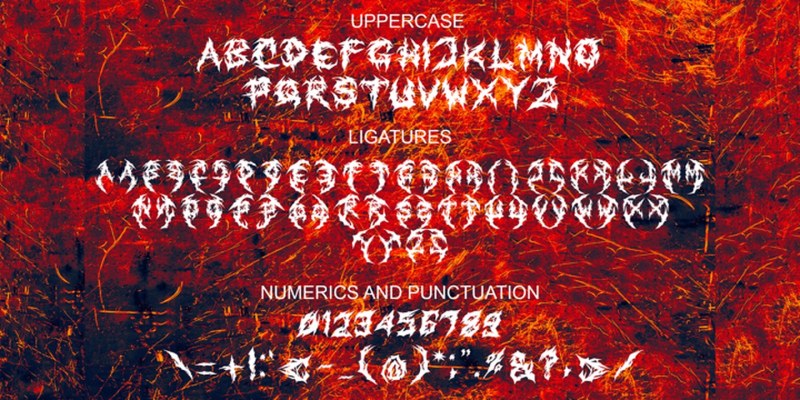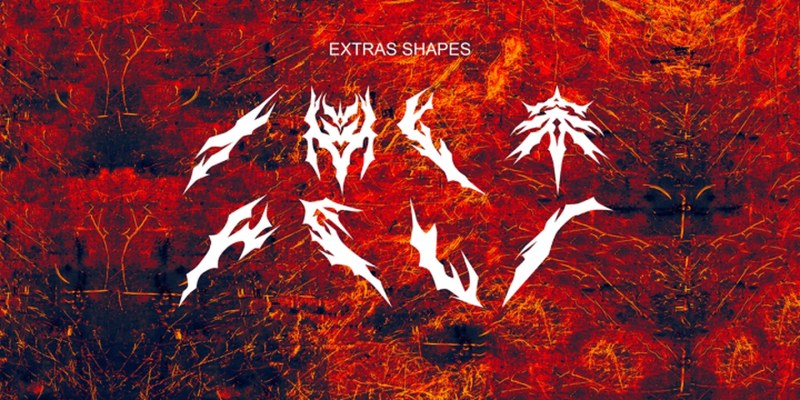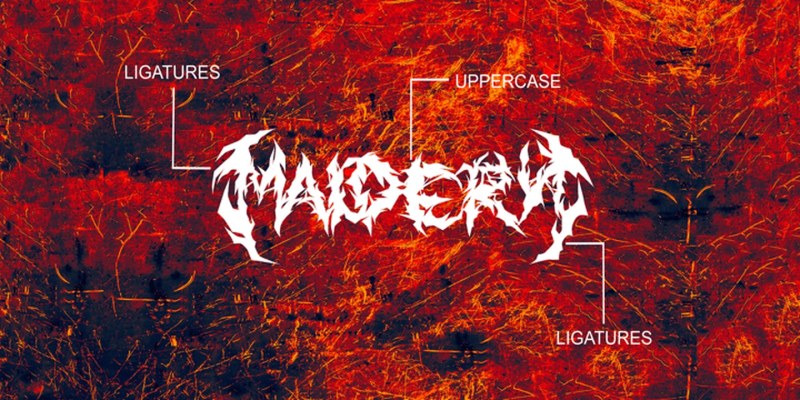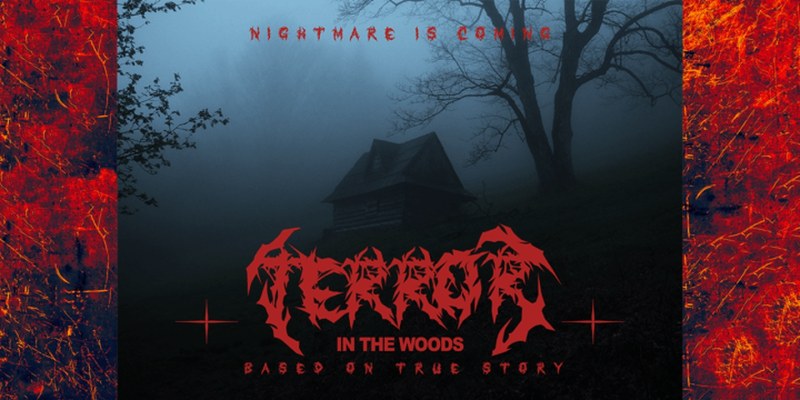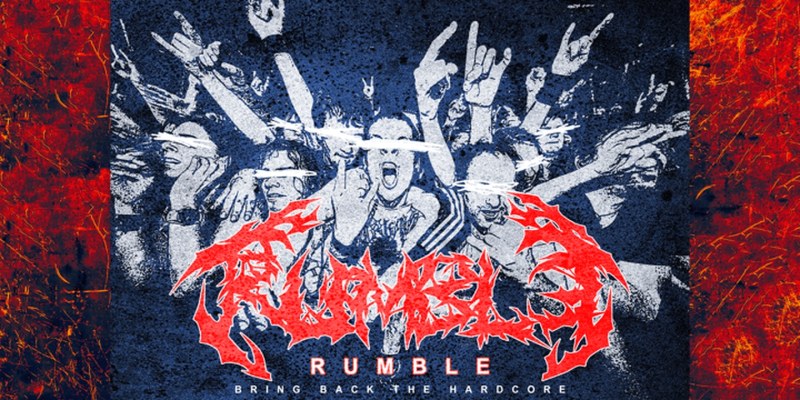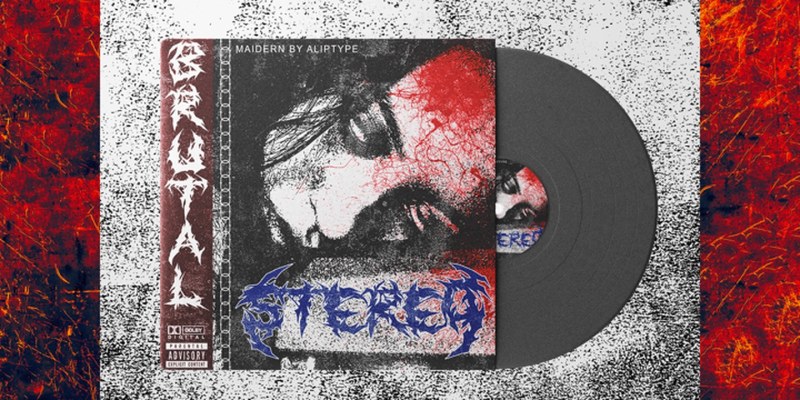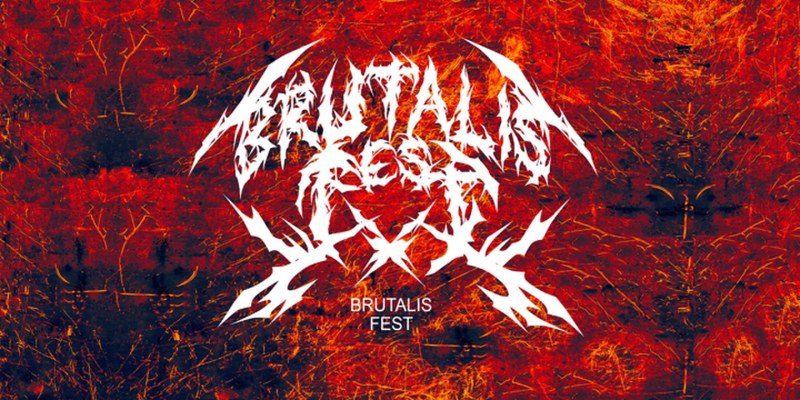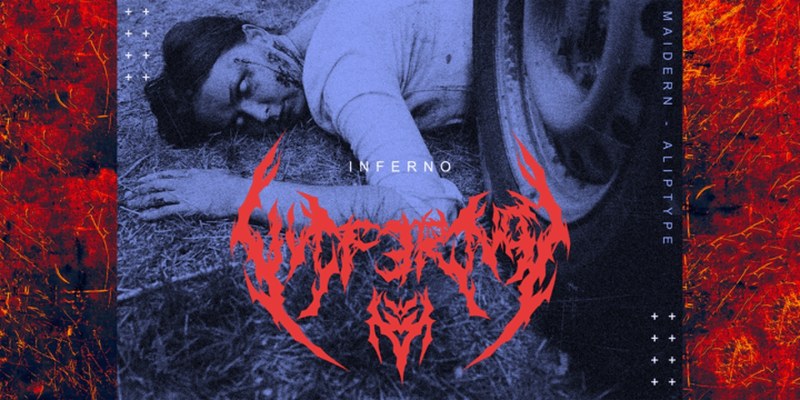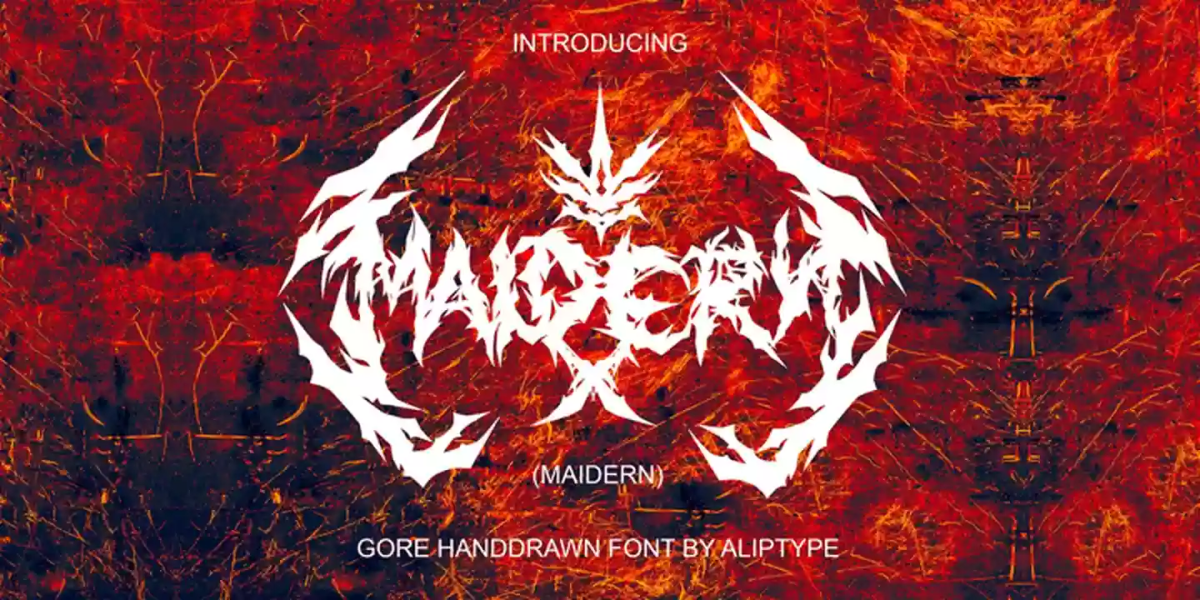
Maidern Font
Maidern is a gore and death metal typeface style. Maidern is perfect for logotype death metal brands, products, merchandise death metal band, death metal band covers, ro…
Maidern is a gore and death metal typeface style. Maidern is perfect for logotype death metal brands, products, merchandise death metal band, death metal band covers, rock events, rock posters, rock magazine covers, branding, product design, labels, and other creative project. Make your artwork more gore with the deadly style of this font.
Where Maidern Font works best
Event & seasonal design
Maidern Font suits themed posters, holiday campaigns, festival identities and party invitations.
Game & entertainment titles
Decorative letterforms are a natural fit for game logos, movie-style titles and merch.
Packaging accents
Use Maidern Font sparingly for product names or flavour labels that need personality.
What is Maidern Font good for?
Maidern Font is a Decorative Fonts typeface tagged Branding, Creative, Decorative Fonts. It works well for headlines, logos, posters, social media graphics and branding projects that need a distinctive decorative fonts look.